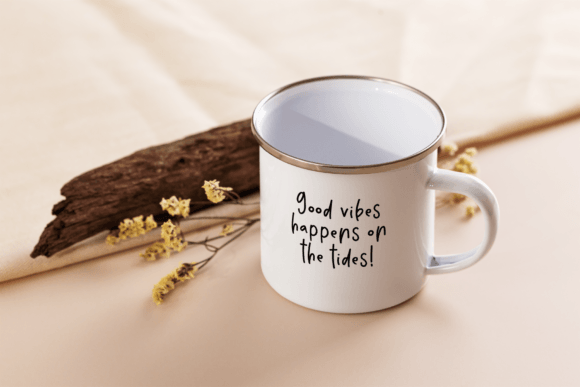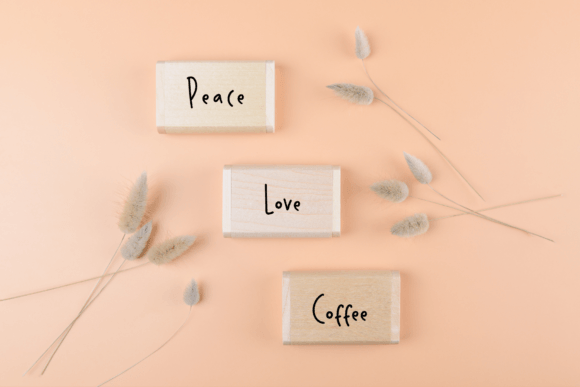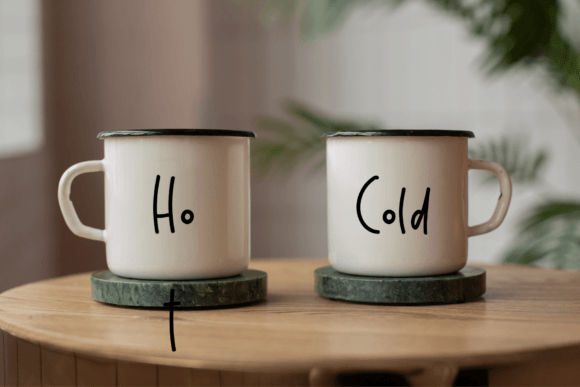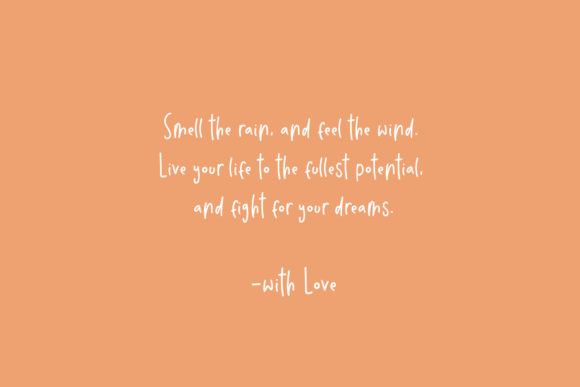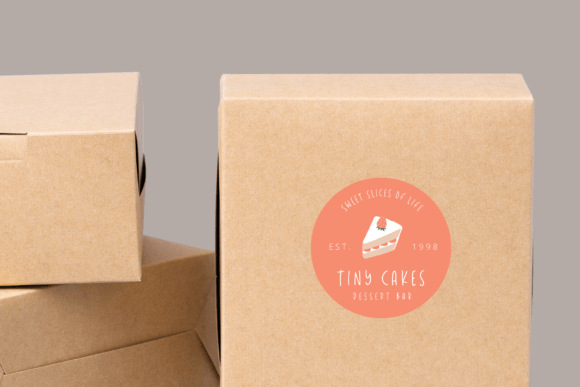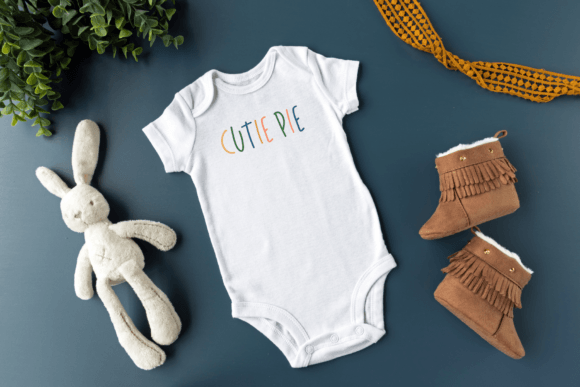
Convallis Font: The Ultimate Handwritten Font for Creative Projects
Are you a designer, crafter, or DIY enthusiast looking for a stylish and handwritten font to elevate your creative projects? Look no further than Convallis Font! This versatile and adorable font is perfect for creating a wide range of products, from logos and branding to notebooks, journals, labels, stickers, and so much more.
What is Convallis Font?
Convallis Font is a beautiful, handwritten font that exudes a sense of playfulness and charm. Its unique and stylish lettering makes it perfect for adding a personal touch to your designs. Whether you’re creating a logo, greeting card, or baby clothing, Convallis Font is sure to make your project stand out.
The best part about Convallis Font is its versatility. You can use it to create a wide range of products, including:
• Cute logos and branding
• Notebooks and journals
• Labels and stickers
• Blogs and quotes
• Greeting cards and invitations
• Tea towels and apparel
• Pillows and mugs
• Toys and posters
• Baby clothing and picture books
Basically, anything that requires a stylish and handwritten look can be elevated with Convallis Font! 😍
Why Choose Convallis Font?
So, why should you choose Convallis Font for your creative projects? Here are just a few reasons:
• Unique and stylish: Convallis Font has a one-of-a-kind, handwritten look that’s sure to make your projects stand out.
• Versatile: Use Convallis Font for a wide range of products, from logos and branding to baby clothing and picture books.
Tips for Using Convallis Font
Here are a few tips for getting the most out of Convallis Font:
• Experiment with different colors: Convallis Font looks great in a variety of colors, so don’t be afraid to experiment and find the perfect hue for your project.
• Mix and match with other fonts: Convallis Font pairs well with a variety of other fonts, so feel free to get creative and mix and match to find the perfect combination.
• Use it for titles and headings: Convallis Font is perfect for titles and headings, but you can also use it for body text for a more playful look.
Get Creative with Convallis Font!
In conclusion, Convallis Font is a versatile and adorable font that’s perfect for creating a wide range of products. Its unique and stylish handwritten look makes it perfect for adding a personal touch to your designs. Whether you’re a designer, crafter, or DIY enthusiast, Convallis Font is sure to become a favorite in your toolkit. So go ahead, get creative, and show the world what you can do with Convallis Font! 😊